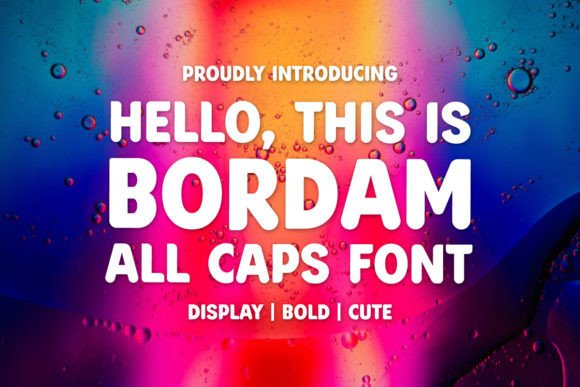
The Bold Statement Maker: Bordam Font
I’ll never forget the time I was working on a branding project for a new coffee shop. I had the logo design all sorted out, but I was struggling to find the perfect font to pair with it. The client wanted something bold, eye-catching, and assertive. That’s when I stumbled upon Bordam Font. It was love at first sight! 💕
Bordam is a bold and assertive all-caps display font that instantly elevates any design. Whether you’re working on a logo, a poster, or a social media graphic, this font is sure to make a statement. In this article, I’ll share my honest review of Bordam Font, provide a practical guide on how to use it, and explore similar fonts and alternatives.
- ✅ Bold and assertive: Bordam Font is perfect for making a statement in your designs.
- ✅ All-caps display font: It’s designed to be attention-grabbing and works beautifully in all-caps.
- ✅ Versatile: Bordam Font can be used for a wide range of projects, from logos to posters to social media graphics.
- ✅ Easily readable: Despite its boldness, Bordam Font is surprisingly easy to read, even at smaller sizes.
- ⚠️ Limited use cases for body text: Due to its boldness, Bordam Font is best used for headings or titles, rather than body text.
- ⚠️ May not work well with certain design styles: Bordam Font has a strong personality, so it may not be the best fit for designs that require a more subtle or elegant look.
Bordam Font comes with a range of OpenType features and glyphs that can add depth and interest to your designs. Here are a few tips for exploring these features:
- Experiment with different ligatures and swashes to add a touch of personality to your designs.
The Story Behind Bordam Font
Bordam Font was designed with the goal of creating a bold and assertive font that would make a statement in any design. The designer, inspired by the urban landscape and modern typography, aimed to create a font that would be both eye-catching and easy to read. With its clean lines and confident personality, Bordam Font is the perfect choice for designers looking to make a bold statement.
| Font Name | Bordam Font |
| Author | Itswidodo Studio |
Q: What is Bordam Font best used for?
A: Bordam Font is best used for headings, titles, and other display text where a bold and assertive font is desired.
Q: Is Bordam Font easy to read?
A: Yes, despite its boldness, Bordam Font is surprisingly easy to read, even at smaller sizes.
Q: Can I use Bordam Font for body text?
A: While Bordam Font can be used for body text, it’s best suited for headings and titles due to its bold personality.
Q: Is Bordam Font suitable for digital use?
A: Yes, Bordam Font is optimized for digital use and works beautifully in a variety of digital applications, from social media graphics to website headers.